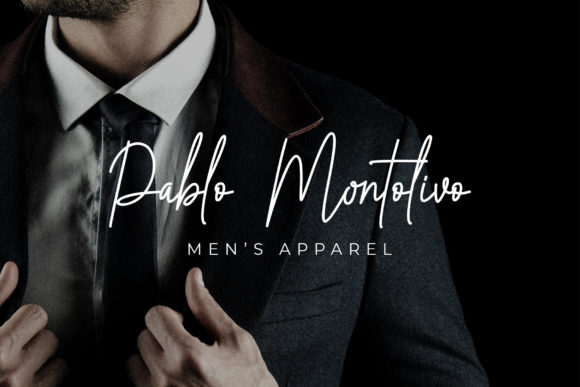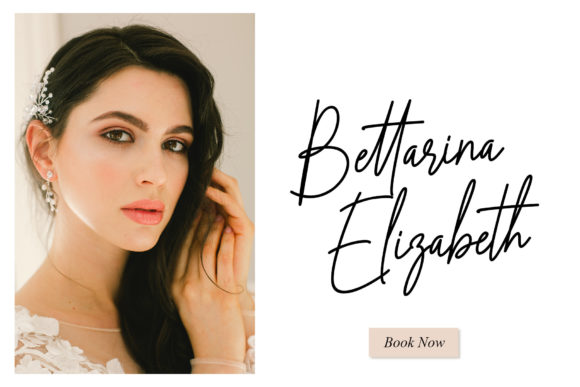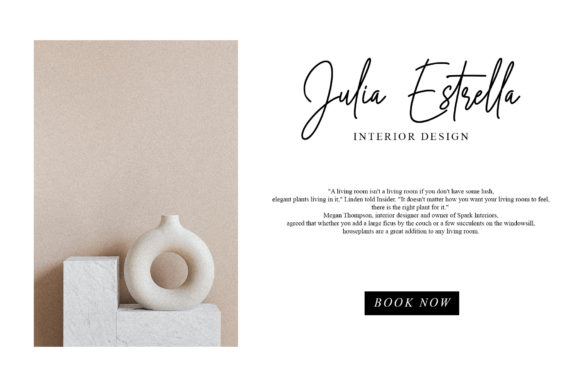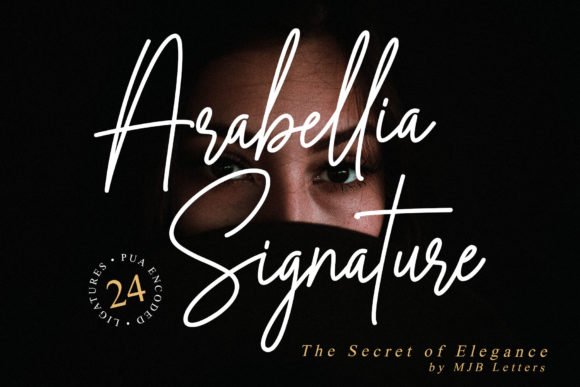
Introduction to Arabellia Signature Font
Arabellia Signature is a lovely and cursive handwritten font.
Why Choose Arabellia Signature Font?
Arabellia Signature Font offers exceptional quality and versatility, making it a valuable addition to your design toolkit. Whether you’re creating for personal projects or commercial use, Arabellia Signature Font delivers professional results.